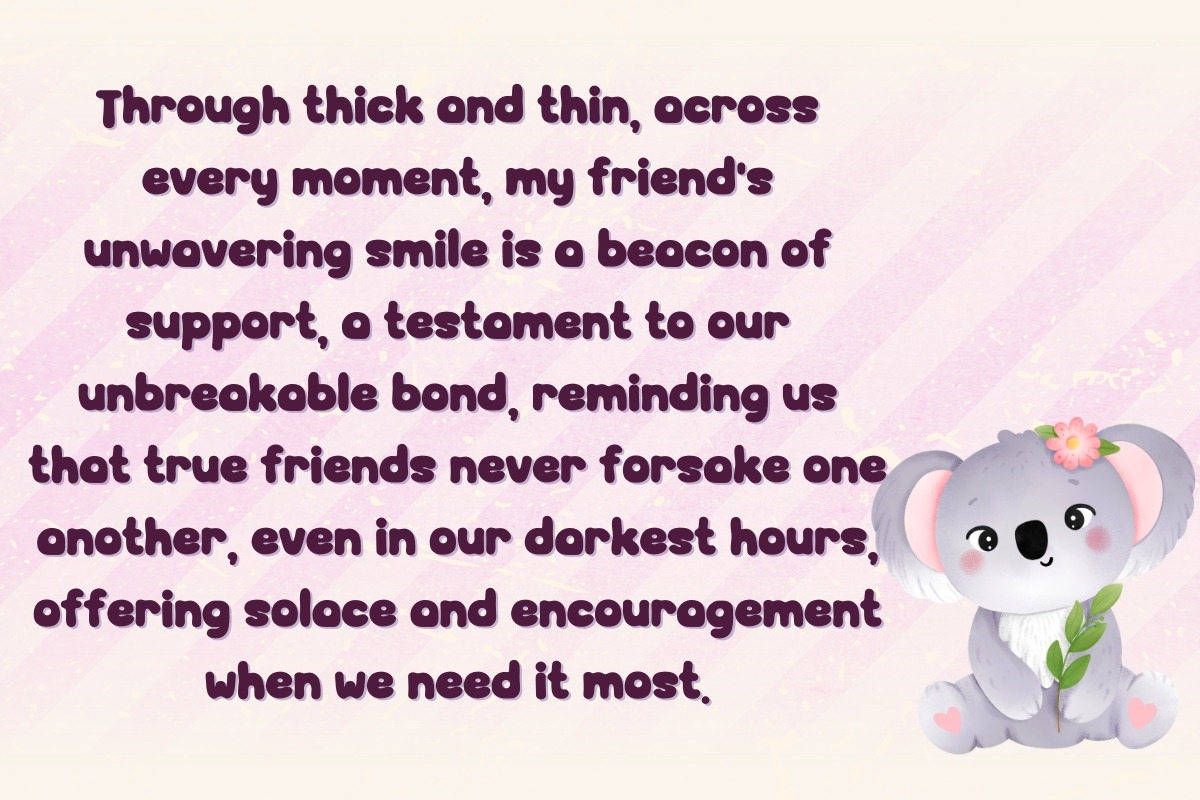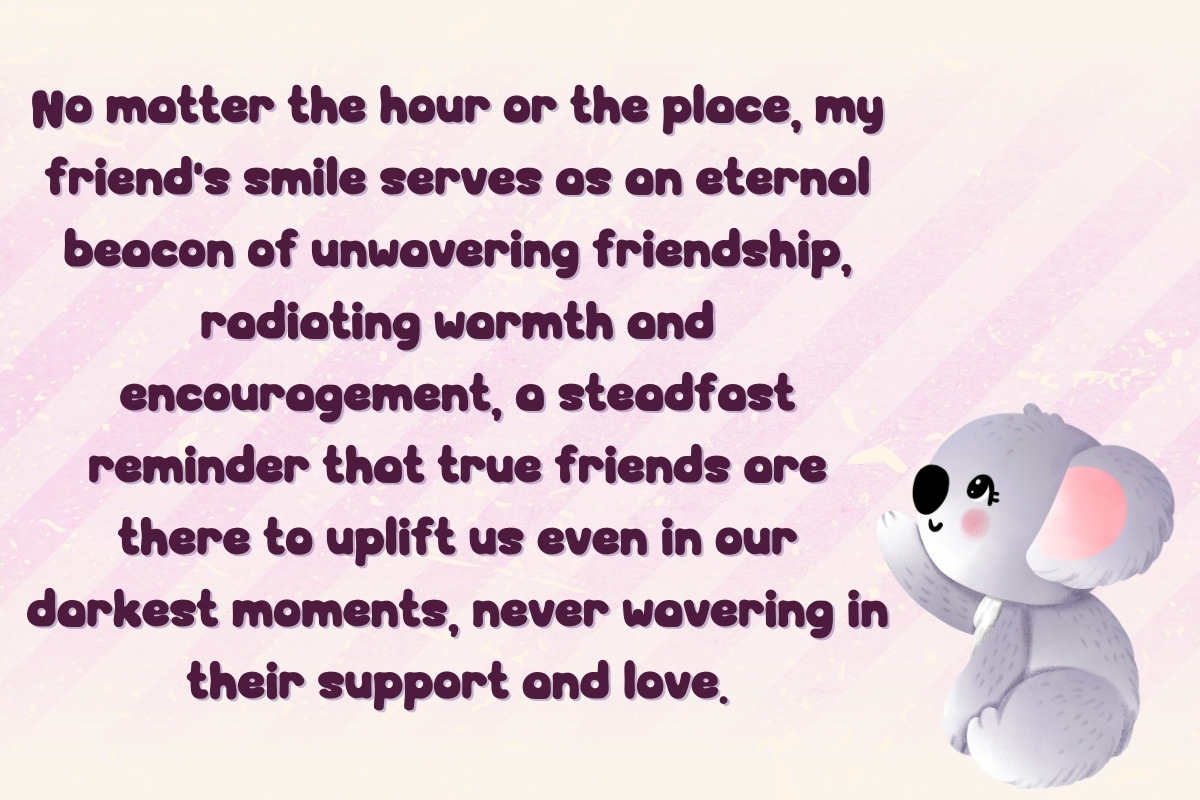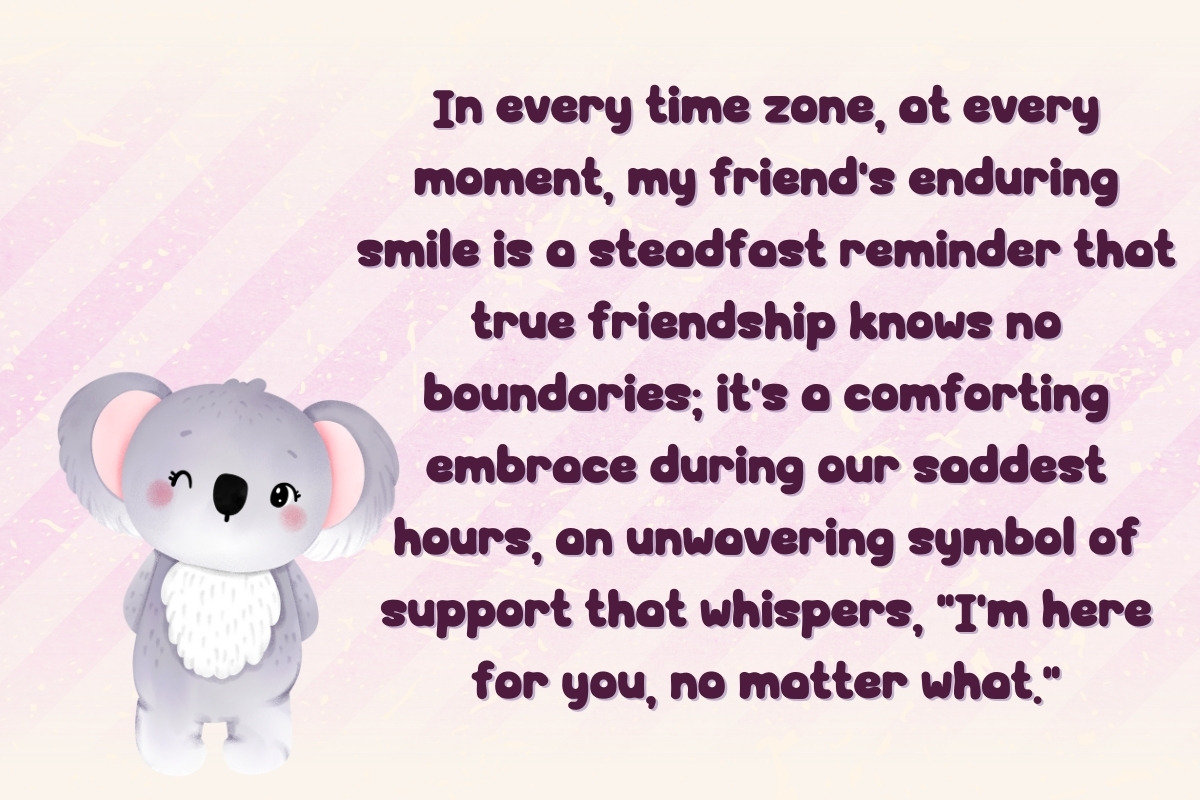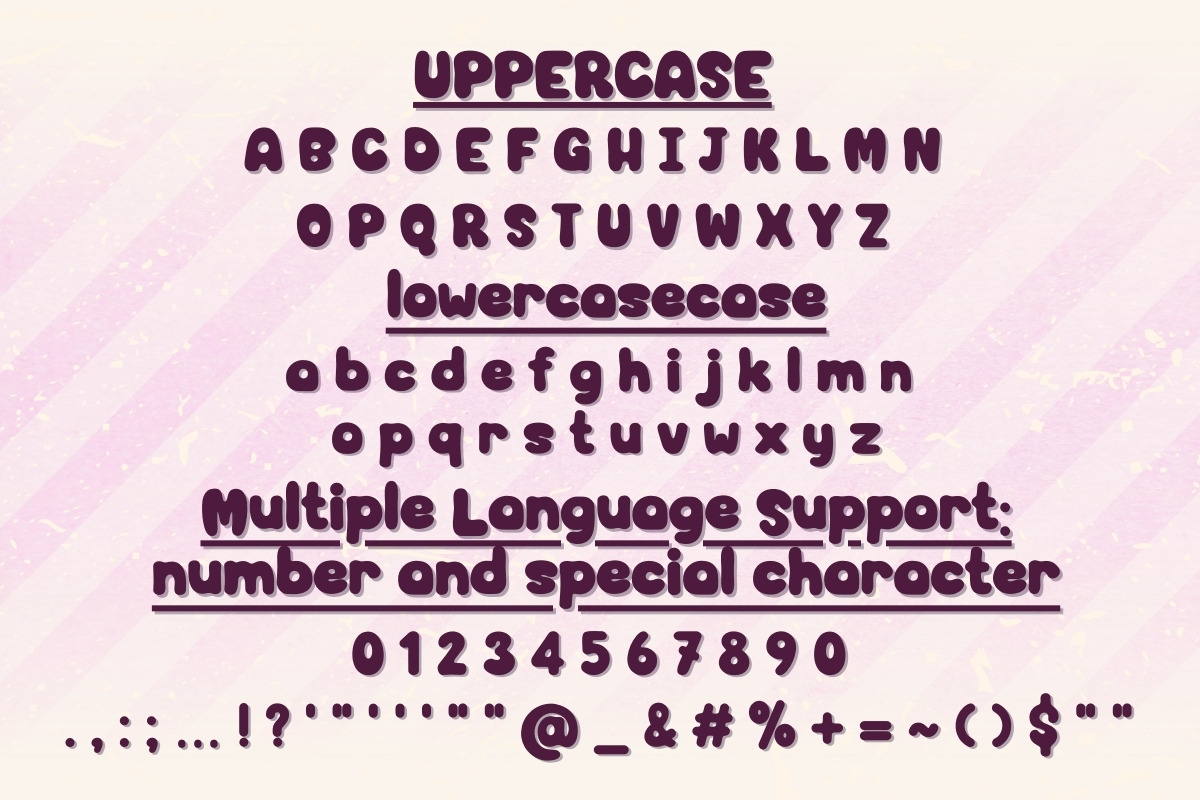
Happy Smile - Handwritting
Introducing "Happy Smile," the perfect script font, ideal for adding a touch of whimsy and charm to your creative projects. This display font, with its handwritten style, will infuse your designs with a joyful spirit. Give your work a personal and delightful twist with Happy Smile!